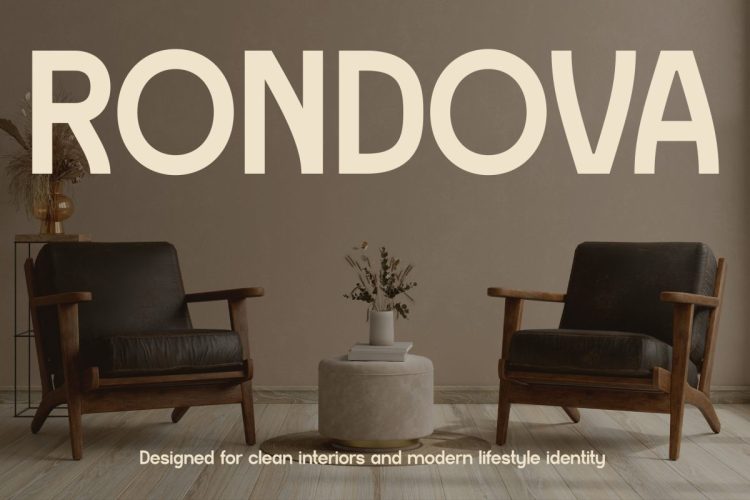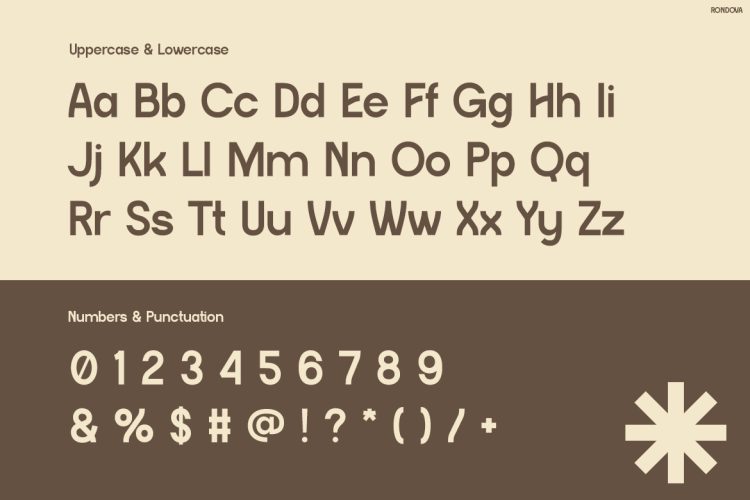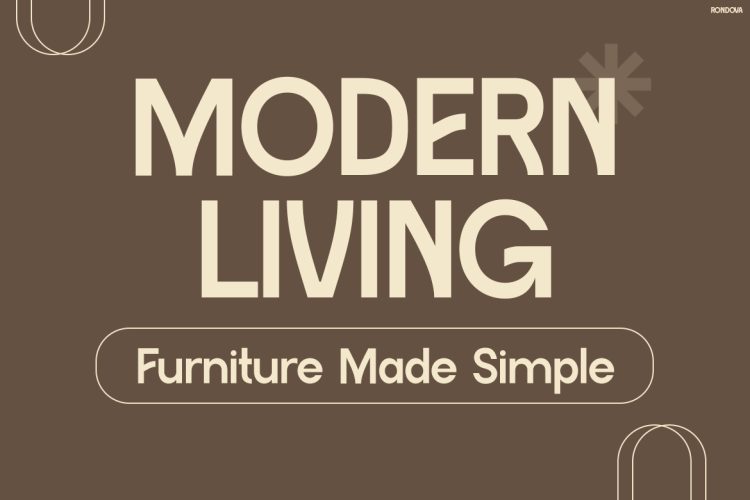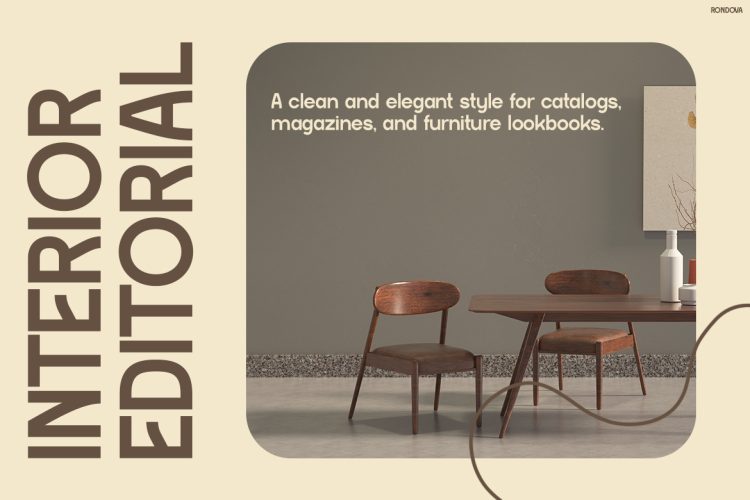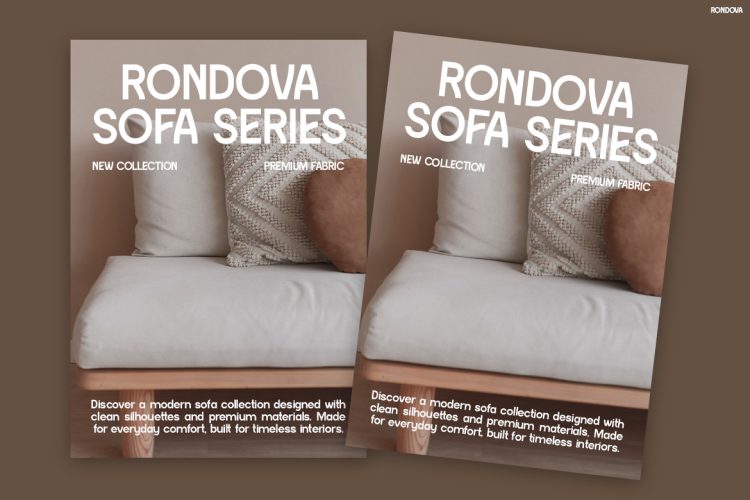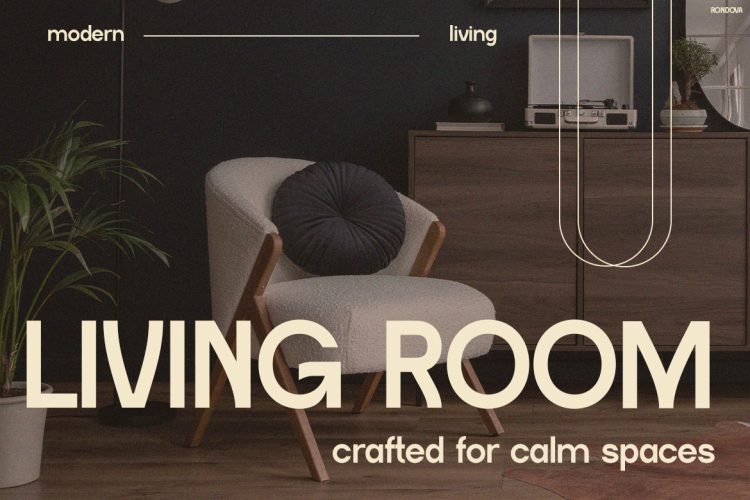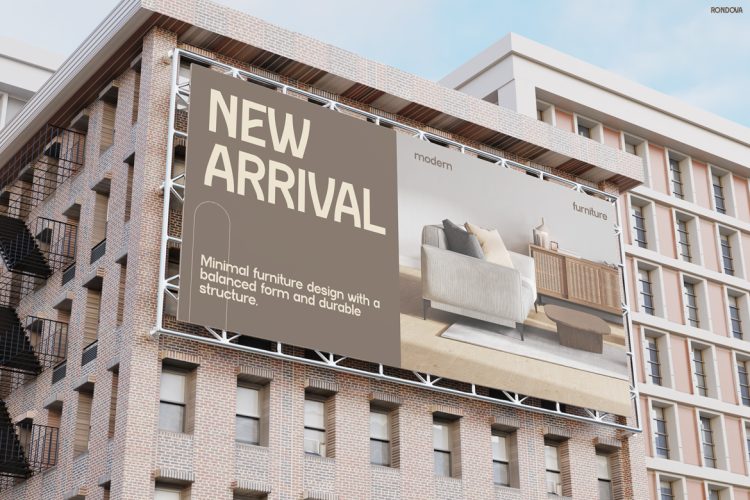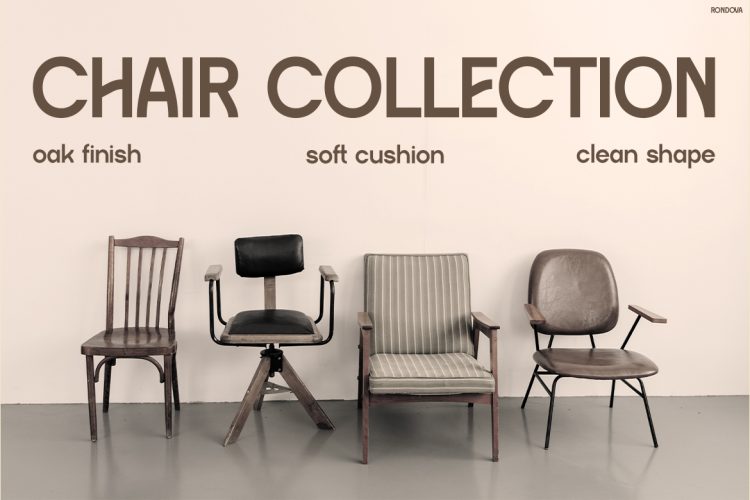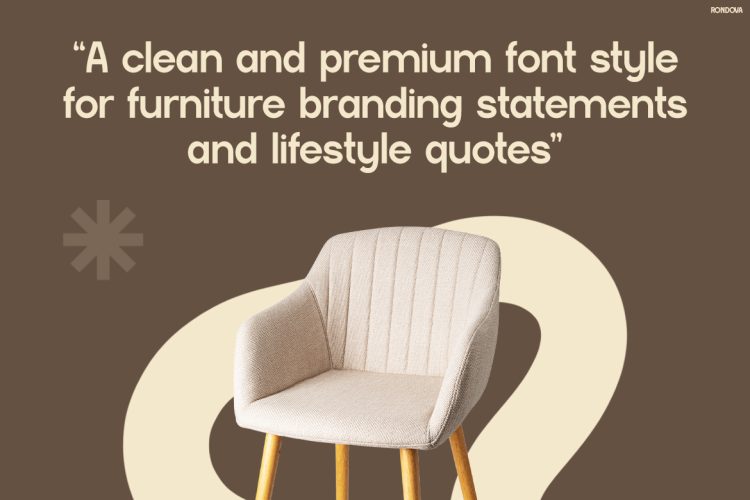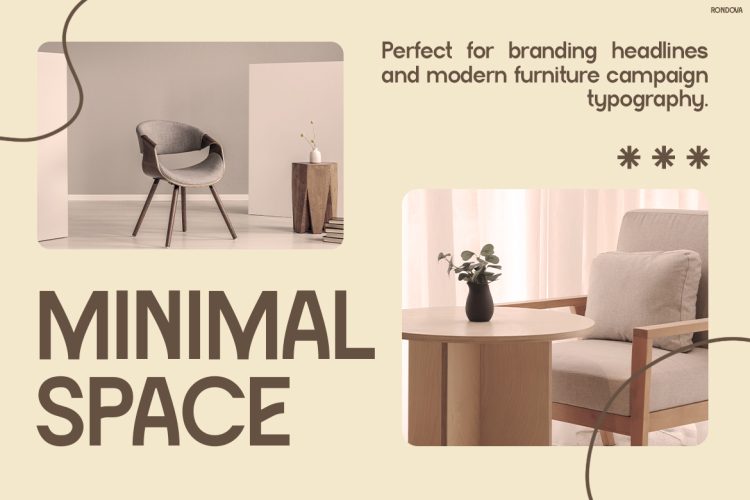
RONDOVA โ Minimal Elegance for Modern Living
Modern Font RONDOVA is a clean and sophisticated typeface designed to bring a sense of calm, elegance, and modern simplicity into your designs. At first glance, its balanced proportions and smooth letterforms create a refined and timeless aesthetic. Moreover, the minimal structure combined with soft geometric curves gives it a premium and contemporary feel. Because of this harmony, the font looks effortlessly stylish while remaining highly readable. In addition, its subtle elegance allows every word to feel intentional and polished. As a result, RONDOVA is perfect for designs that focus on clarity, luxury, and modern lifestyle visuals.
Modern Font RONDOVA is a versatile display font crafted for clean, minimal, and high-end design projects. Not only does it feature elegant and structured letterforms, but it also pairs beautifully with neutral color palettes, interior photography, and editorial layouts. Furthermore, its simplicity enhances readability while maintaining a strong visual identity. Therefore, whether you are working on branding, catalogs, or social media, RONDOVA adds a modern and professional touch. Ultimately, it transforms simple text into refined visuals that feel premium and sophisticated.
Because of its minimal and elegant style, Modern Font RONDOVA is ideal for:
- Interior design and furniture branding
- Editorial layouts and lifestyle magazines
- Home decor catalogs and product showcases
- Social media content with a clean aesthetic
- Architecture and modern branding projects
- Luxury branding and minimal design concepts